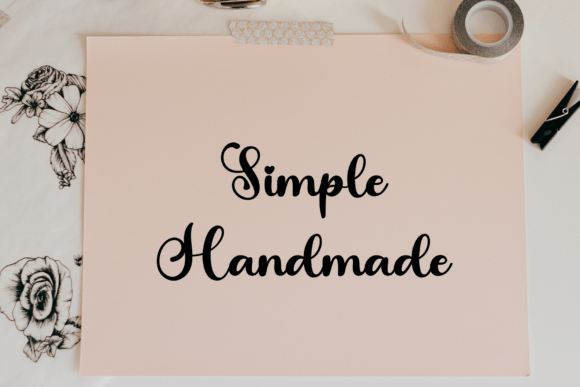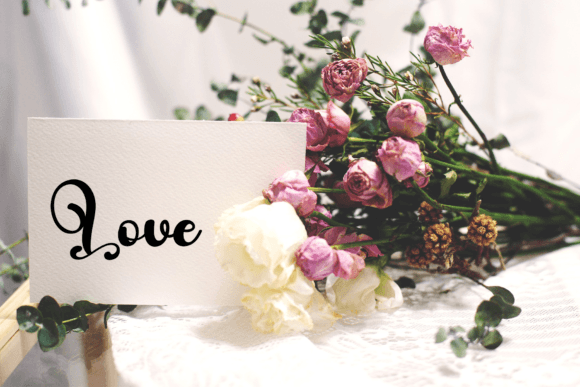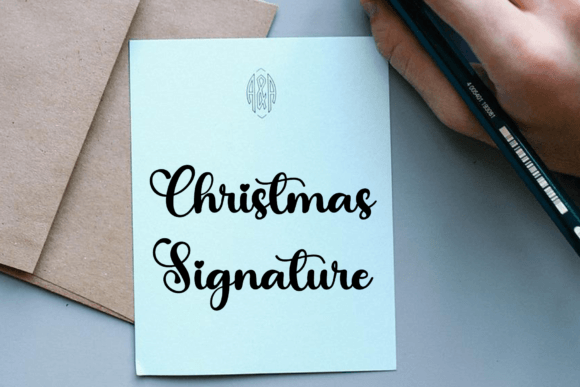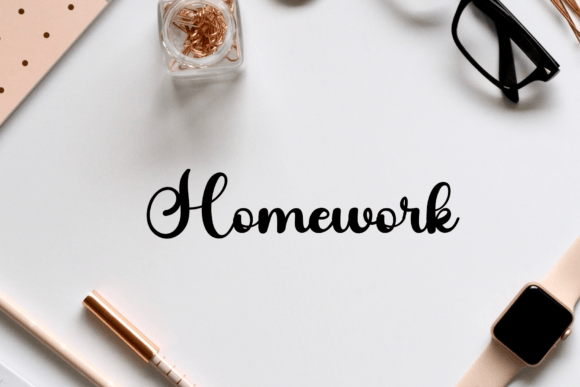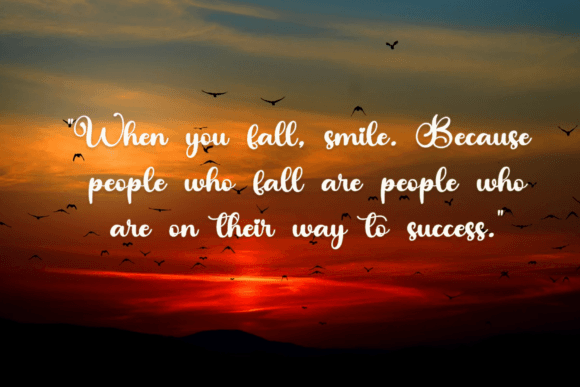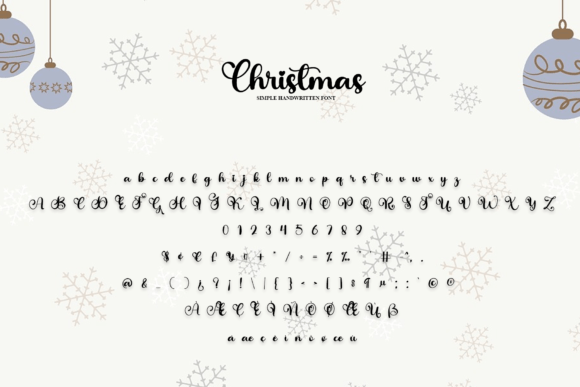
The Magic of the Christmas Season in Font Form
As the snowflakes start to fall and the festive lights twinkle in the windows, many of us find ourselves swept up in the creative spirit of the season. It’s the time of year when we break out the glue, glitter, and scissors to craft the perfect holiday card or gift tag. But for designers, the magic of Christmas goes beyond the craft supplies – it’s all about the typography.
That’s where the Christmas Font comes in – a delicate handwritten font carefully crafted to evoke the whimsy and wonder of the holiday season. Whether you’re designing invitations, food packaging, or titles, this font is the perfect way to add a touch of festive flair to your projects. And for designers, it’s a valuable tool that can help bring a unique and personal touch to any design.
Key Features of Christmas Font
- Unique Characteristics: This font features a festive and playful design, complete with intricate details and ornaments that evoke the spirit of Christmas.
- Characters and Glyphs: The font includes a wide range of characters and glyphs, including uppercase and lowercase letters, numbers, and special characters.
Christmas Font Review
At first glance, the Christmas Font is a festive and cheerful addition to any holiday design. ✨ The font’s bold, playful strokes evoke the spirit of the season, making it perfect for posters, cards, and other festive materials.
The font’s versatility is another major strength. ✨ It’s suitable for both digital and print designs, and its bold style ensures it’s readable even at smaller sizes. The font also includes a range of punctuation and symbol characters, making it easy to use in a variety of contexts.
However, there are some limitations to consider. ⚠️ The font’s style may be too loud or overpowering for more subtle designs, and it may not be the best choice for designs that require a more sophisticated or elegant feel.
Overall, the Christmas Font is a fun and festive addition to any holiday design. While it may not be the best choice for every project, it’s a great option for designs that need a bold, playful touch.
- Works well for posters, cards, and other festive materials
- Suitable for both digital and print designs
- Includes a range of punctuation and symbol characters
Practical Application Guide for Christmas Font
Tips for Getting the Most Out of Christmas Font
Use Christmas Font to add a festive touch to your designs. You can use it for titles, headings, or body text. Experiment with different font sizes, colors, and styles to create a unique look.
Christmas Font is commonly used for:
- Christmas card designs
- Holiday party invitations
- Gift tag designs
- Christmas-themed social media posts
Alternatives to “Christmas Font” for Designers
Bethlehem
Bethlehem is a classic, elegant font perfect for formal Christmas designs, such as invitations, greeting cards, and holiday menus. It has a traditional, sophisticated feel that evokes the spirit of the season. Compared to Christmas Font, Bethlehem is more refined and less playful.
Merriweather Christmas
Merriweather Christmas is a beautiful, serif font ideal for creating a warm and inviting atmosphere in holiday designs, such as wrapping paper, gift tags, and holiday packaging. It has a classic, timeless feel that is reminiscent of traditional holiday decorations. While similar to Christmas Font in its festive feel, Merriweather Christmas is more understated and sophisticated.